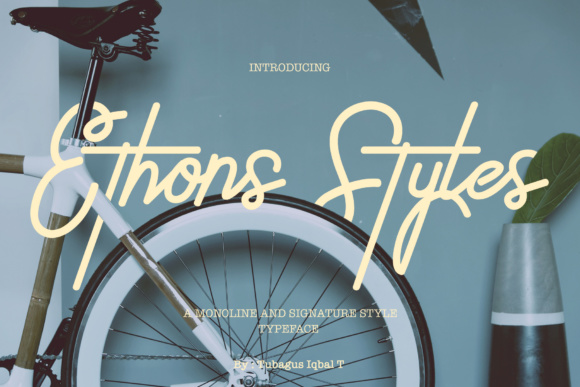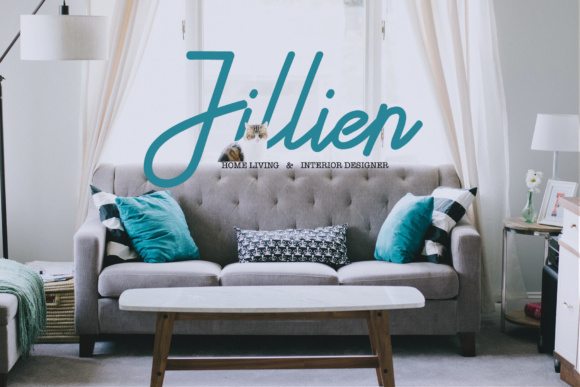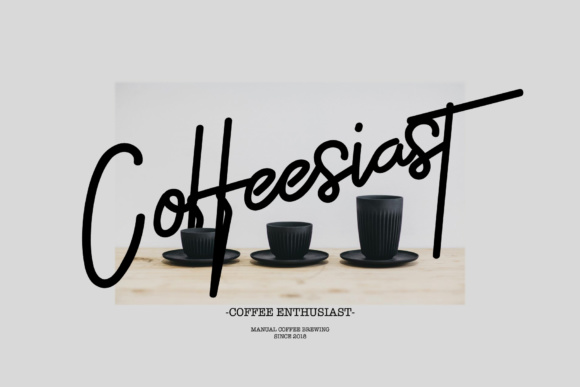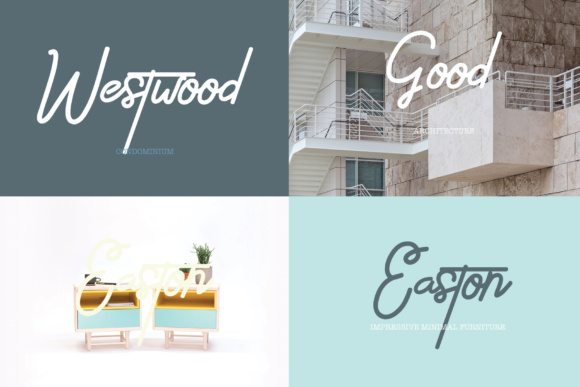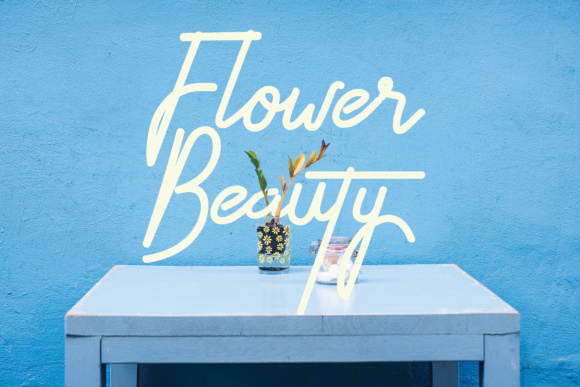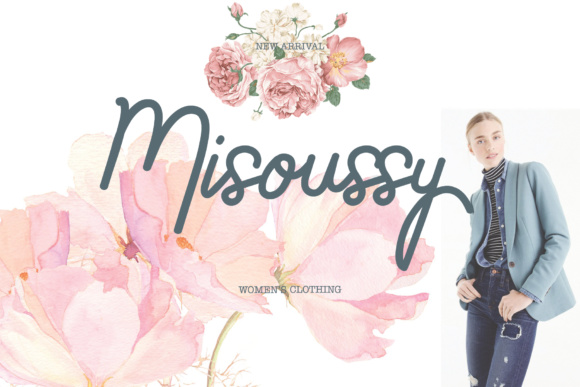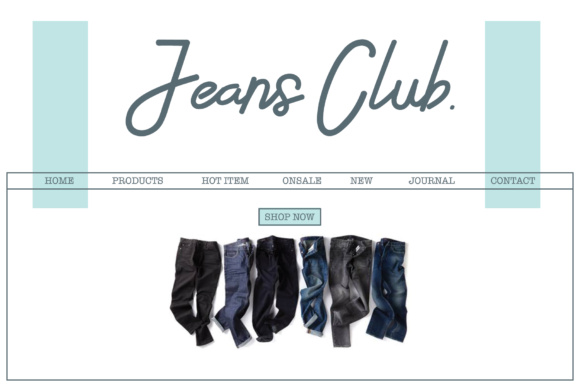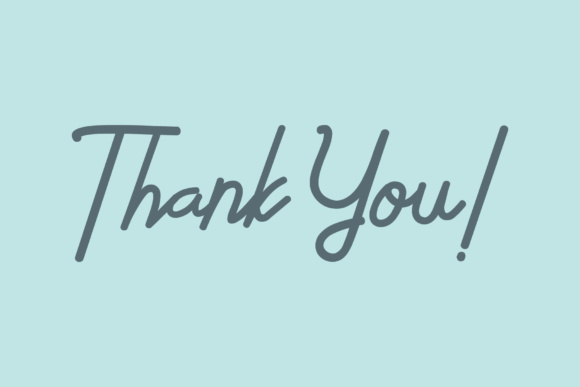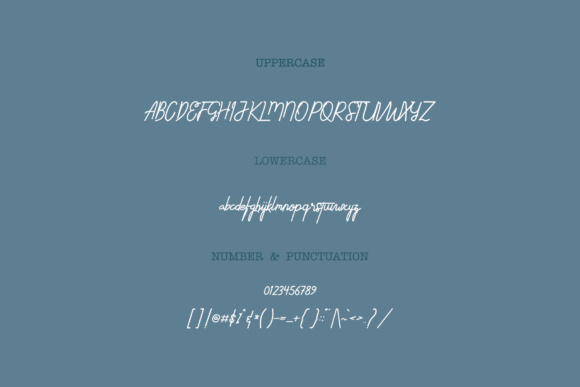
Ethons Styles Font
About Ethons Styles Font
Ethons Styles is a monoline and signature style typeface. Complete your perfect design with Ethons Styles so you can feel the modern script at its best.